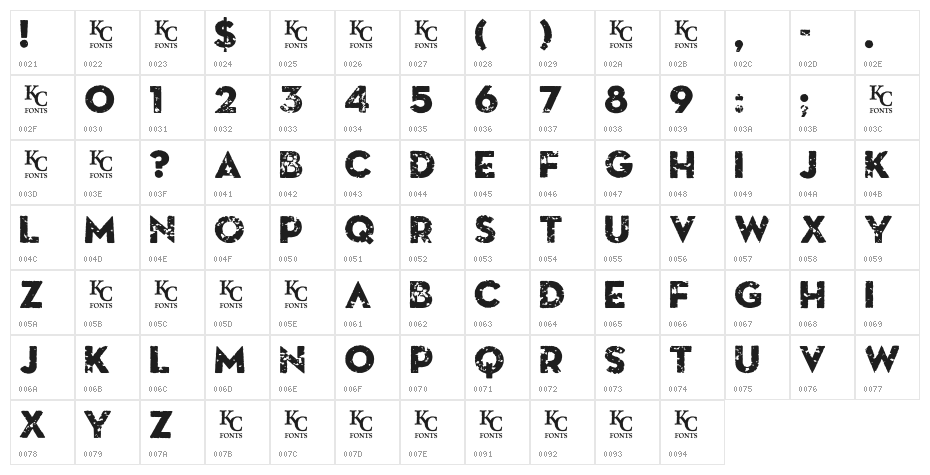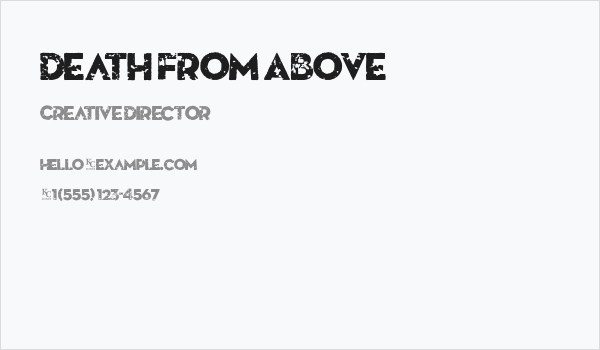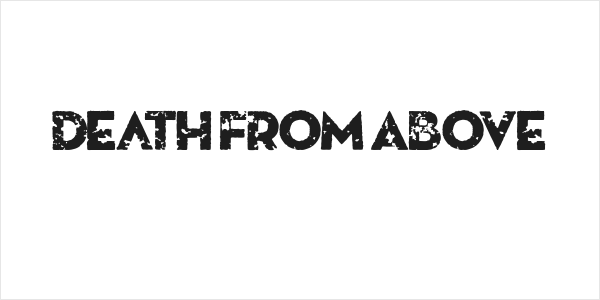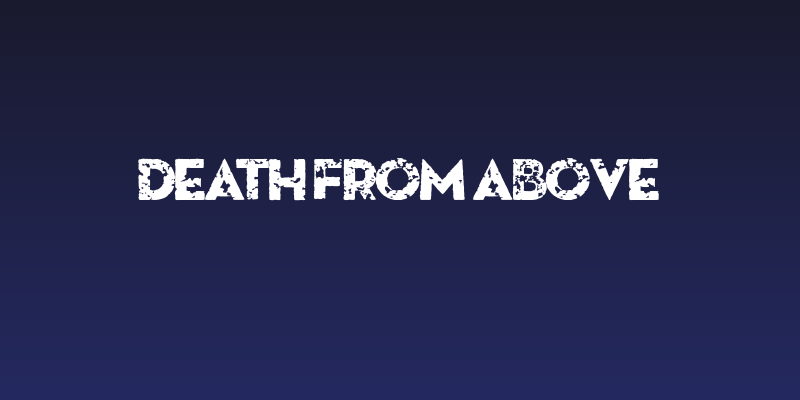
Death From Above Font
Death From Above Description
This font features a bold and distressed style, giving it a rugged and edgy appearance. The characters are heavily textured, resembling a worn or eroded surface, which adds a sense of depth and character. The uppercase and lowercase letters maintain a consistent weight, while the numbers and special characters follow the same distressed aesthetic. This font is ideal for projects that require a strong, impactful look, such as posters, album covers, or branding for edgy or alternative products.
Proposed ProjectsIdeal for posters, album covers, branding for alternative products, and any design needing an edgy, impactful look.